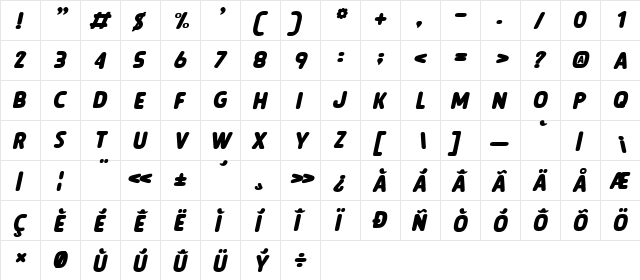
LEGEND OF THE WHITE LION Italic
Design Context for LEGEND OF THE WHITE LION Typeface
LEGEND OF THE WHITE LION is a composed and adaptable typeface that performs quietly and consistently across a wide range of design contexts. The dynamic lean of this cut emphasises speed and emphasis in any layout.
Pro Tip: Try LEGEND OF THE WHITE LION for annotation and caption copy alongside an upright companion — the contrast in angle creates a dynamic but ordered typographic system.